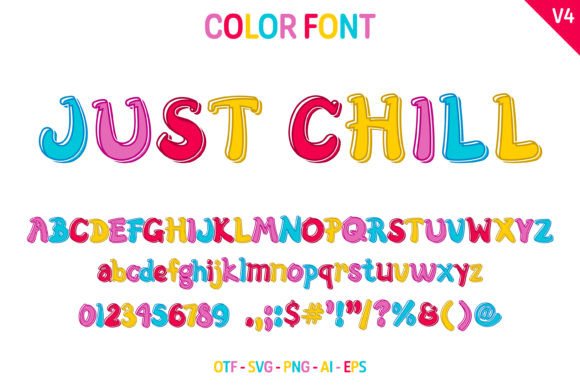
Adorned with an array of colors and curves, Just Chill Font emerges as a haven of tranquility in a digital world brimming with rigidity. Its rounded edges and fluid strokes dance harmoniously, evoking a sense of serenity that instantly captivates the beholder.
Unleash the allure of Just Chill Font, a font that embodies the essence of relaxation, inviting you to sink into a realm of calm and tranquility. Its carefree spirit dances across each letter, promising to transform your designs into oases of serenity.
With Just Chill Font, you can effortlessly evoke the allure of a sun-kissed beach, the tranquility of a whispering forest, or the serenity of a secluded retreat. Its versatile charm lends itself to an array of creative endeavors, making it the perfect choice for vacation-themed graphics, spa advertisements, and any design seeking to inspire a sense of peace.
Immerse yourself in the soothing embrace of Just Chill Font, a font that whispers of relaxation and tranquility. Let its curves and colors lull you into a state of serenity, where creativity flows effortlessly.